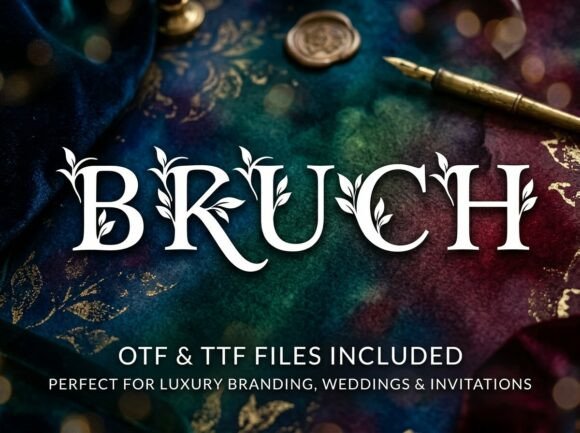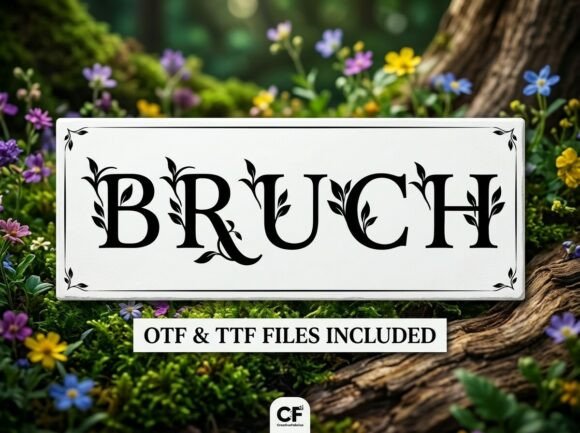
Introducing Bruch Font: Elevate Your Aesthetic with Elegance and Sophistication
In the world of typography, few fonts manage to capture the essence of luxury and sophistication as effortlessly as Bruch. This exquisite display serif font is designed to convey a sense of refinement and poise, making it the perfect choice for designers and crafters looking to elevate their aesthetic. With its unique blend of traditional and modern elements, Bruch is poised to become the go-to font for high-end branding, packaging, and stationery.
The Inspiration Behind Bruch
Bruch Font is characterized by its classic, high-contrast letterforms, which are uniquely embellished with rhythmic, hand-drawn botanical vines and delicate leaf clusters. This distinctive feature bridges the gap between traditional copperplate engraving and modern luxury branding, giving Bruch a timeless yet contemporary feel. The font’s creator drew inspiration from the elegance of botanical illustrations and the sophistication of high-end branding, resulting in a font that exudes refinement and luxury.
Elegant Structural Weight and Sophisticated Personality
One of the standout features of Bruch Font is its elegant structural weight, which lends itself perfectly to high-impact applications such as display headers, titles, and packaging. The font’s sophisticated personality shines through in its delicate lines, precise curves, and refined details. Whether used for independent wedding stationery, premium skincare packaging, or boutique floral identities, Bruch adds a touch of luxury and sophistication to any design.
Bruch Font is a versatile and elegant font that is perfect for designers and crafters looking to create high-end branding, packaging, and stationery. Its unique blend of traditional and modern elements makes it an excellent choice for a wide range of applications, including:
- Independent wedding stationery: Add a touch of elegance and sophistication to wedding invitations, programs, and other stationery with Bruch Font.
- Premium skincare packaging: Elevate your skincare brand with Bruch’s luxurious and refined aesthetic.
- Boutique floral identities: Create stunning floral arrangements and branding with Bruch’s delicate lines and botanical-inspired details.
- High-impact social media headers: Make a statement with Bruch’s elegant and sophisticated font, perfect for botanical-and-bespoke social media headers.
Why Choose Bruch Font?
With so many fonts available, why choose Bruch? Here are just a few reasons why Bruch Font stands out from the crowd:
- Unique and distinctive: Bruch’s hand-drawn botanical vines and delicate leaf clusters make it a one-of-a-kind font that will set your designs apart.
- Elegant and sophisticated: Bruch’s refined details and precise curves give it a luxurious and high-end feel.
- Versatile: Bruch can be used for a wide range of applications, from wedding stationery to skincare packaging.
- High-quality: Bruch is a professionally designed font that is optimized for high-resolution printing and digital display.
In conclusion, Bruch Font is an exquisite display serif font that is sure to elevate your aesthetic with its elegance and sophistication. With its unique blend of traditional and modern elements, Bruch is the perfect choice for designers and crafters looking to create high-end branding, packaging, and stationery. Whether you’re looking to create a luxurious wedding stationery suite or a premium skincare brand, Bruch Font is the perfect choice.